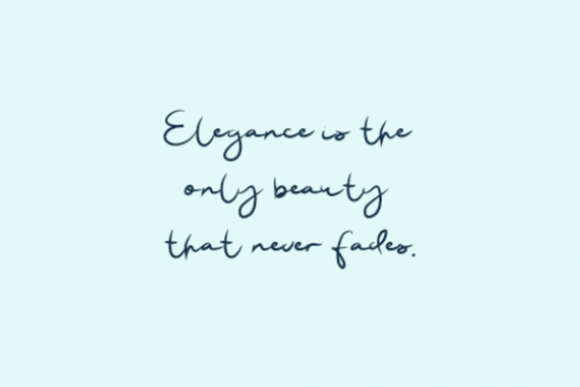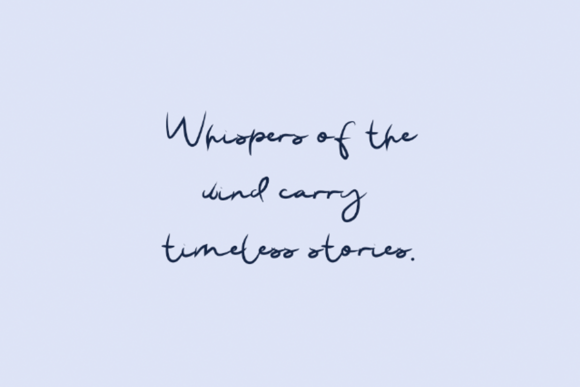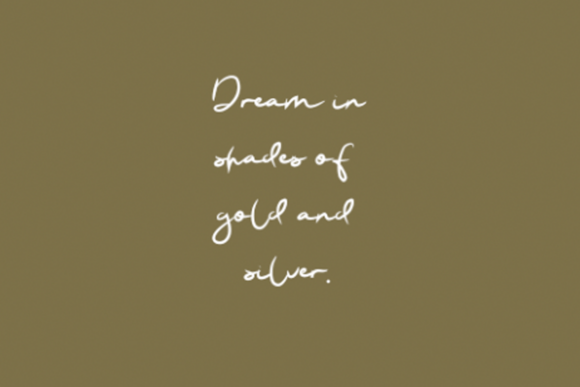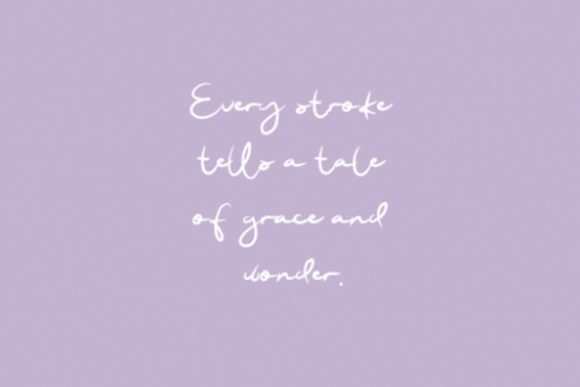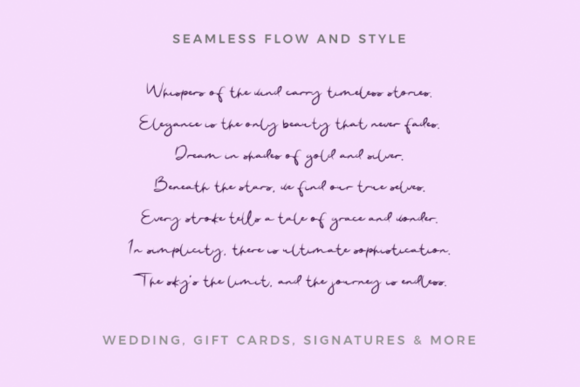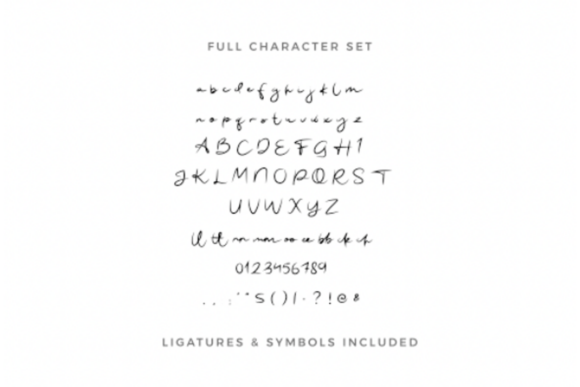
Introducing Bree Bloom: The Epitome of Elegance in Hand-Lettered Script Fonts
In the realm of typography, few fonts manage to capture the essence of sophistication and elegance as effortlessly as Bree Bloom. This exceptional hand-lettered script font is a masterpiece of artisanal design, tailored to infuse your creative projects with a touch of luxury and refinement. Whether you’re a designer, crafter, or simply someone with a keen eye for detail, Bree Bloom is poised to become your go-to font for a myriad of applications.
The Artistry of Bree Bloom
Bree Bloom is more than just a font; it’s an experience. Each letter is meticulously crafted to exude a sense of grace and fluidity, making it perfect for projects where you want to make a lasting impression. From the sweeping curves of its capitals to the delicate twirls of its lowercase letters, Bree Bloom is a true paragon of typographic artistry.
Endless Applications for Bree Bloom
The versatility of Bree Bloom is one of its most compelling attributes. This enchanting font can elevate a wide range of projects, including:
- Wedding Invitations: Add a touch of romance and sophistication to your wedding stationery with Bree Bloom. Its elegant script is sure to set the tone for a memorable and stylish celebration.
- Gift Cards: Imprint your gift cards with a luxurious flourish using Bree Bloom. This font’s refined aesthetic will make your gifts stand out and convey a sense of thoughtfulness.
- Signatures: Lend an individualized touch to your signature with Bree Bloom. Whether you’re looking to add a personal flair to your email signature or create a custom logo, this font is sure to impress.
- Planners and Note-Taking: Embellish your planners, journals, and notes with the elegance of Bree Bloom. This font’s captivating artistry will make even the most mundane tasks seem more enjoyable.
Why Choose Bree Bloom?
In a world where digital communication dominates, Bree Bloom offers a refreshing respite from the ordinary. Here are just a few reasons why designers and crafters are falling in love with this exceptional font:
- Unique and Hand-Crafted: Bree Bloom is a one-of-a-kind, hand-lettered script font that will add a touch of personality to your projects.
- Elegant and Sophisticated: This font’s refined aesthetic makes it perfect for projects where you want to convey a sense of luxury and refinement.
- Versatile: Bree Bloom can be used for a wide range of applications, from wedding invitations to planners and note-taking.
Tips for Using Bree Bloom Effectively
To get the most out of Bree Bloom, here are a few tips to keep in mind:
- Pair with Contrasting Fonts: Combine Bree Bloom with contrasting fonts to create visual interest and add depth to your projects.
- Experiment with Colors: Don’t be afraid to experiment with different colors and textures to find the perfect combination for your project.
- Pay Attention to Spacing: Make sure to adjust the spacing between letters and words to ensure that your text flows smoothly and elegantly.
Bree Bloom is a true masterpiece of typographic design, offering a unique blend of elegance, sophistication, and artistry. Whether you’re a designer, crafter, or simply someone with a passion for beautiful typography, this exceptional hand-lettered script font is sure to captivate and inspire. So why wait? Indulge in the captivating artistry of Bree Bloom today and discover a world of creative possibilities!